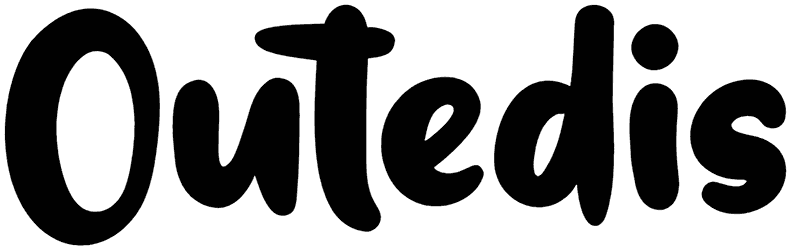
Outedis Font
When you look at the Outedis font, its entertaining style immediately grabs your attention. This script font has a charming style and can be helpful in several situations.
You may use the Outedis font for posters, flyers, and prints on T-shirts; however, it does not support numbers and symbols. This handwritten font’s letters are bold and have smooth edges, creating a pleasant feeling. So download it now to impress your audience.
Outedis is a unique, cute, and charming handwritten font. you can use it for designs with various kinds of creations that require a touch of beauty, this font is the right choice for your elegant project.
This font is designed with a natural touch of handwriting refined to create portions and compositions that suit your needs. So this font is perfect for crafts, kids writing, adventure posters, banner titles, wedding invitations, product packaging logos, quotes, social media page covers, furniture banner titles, book covers, and more.